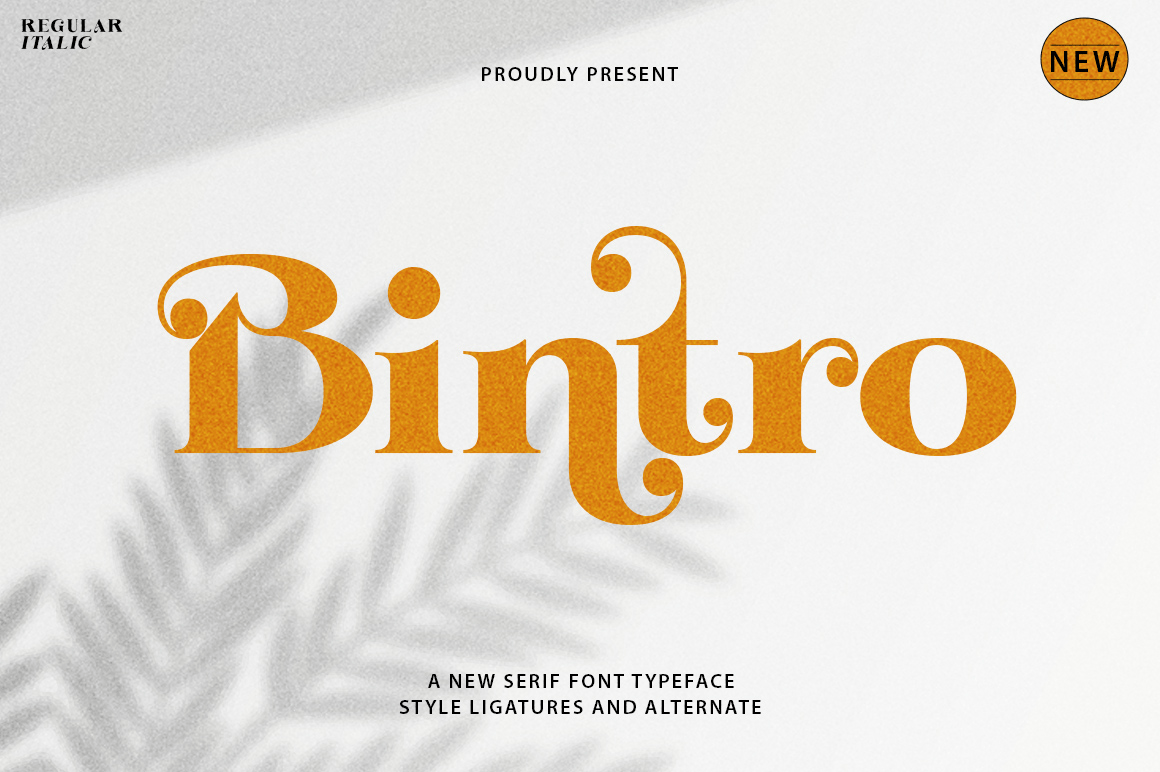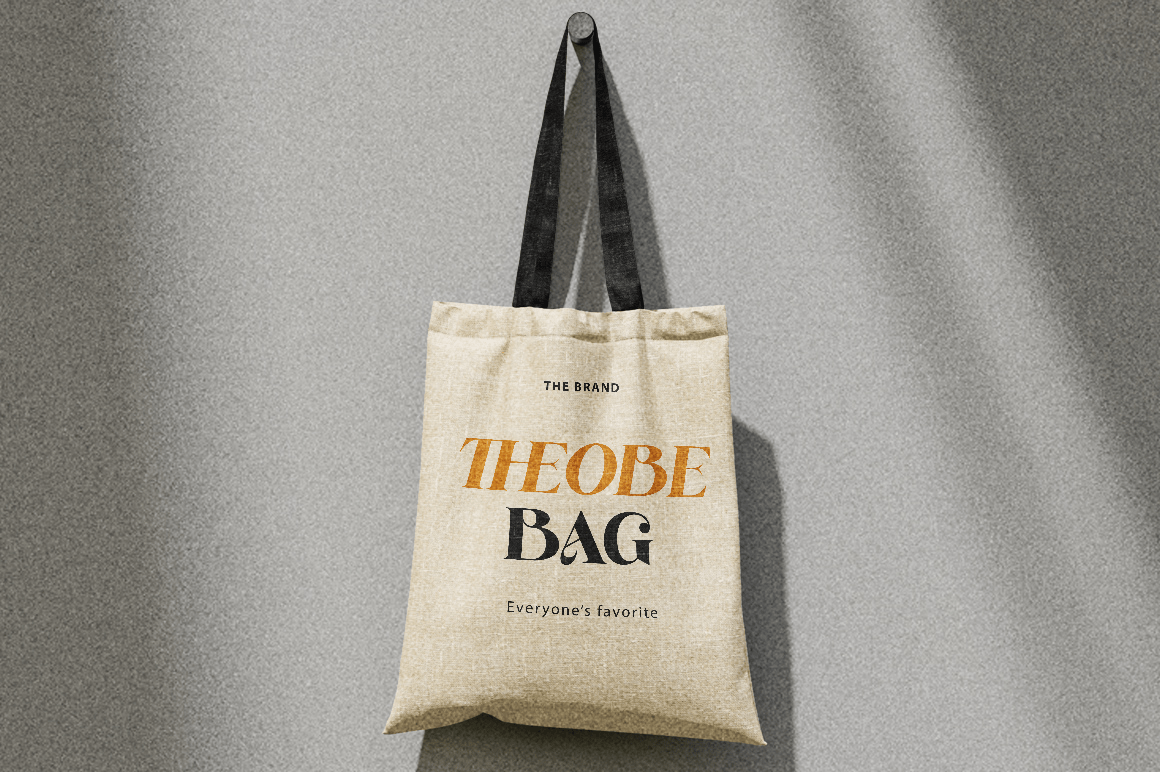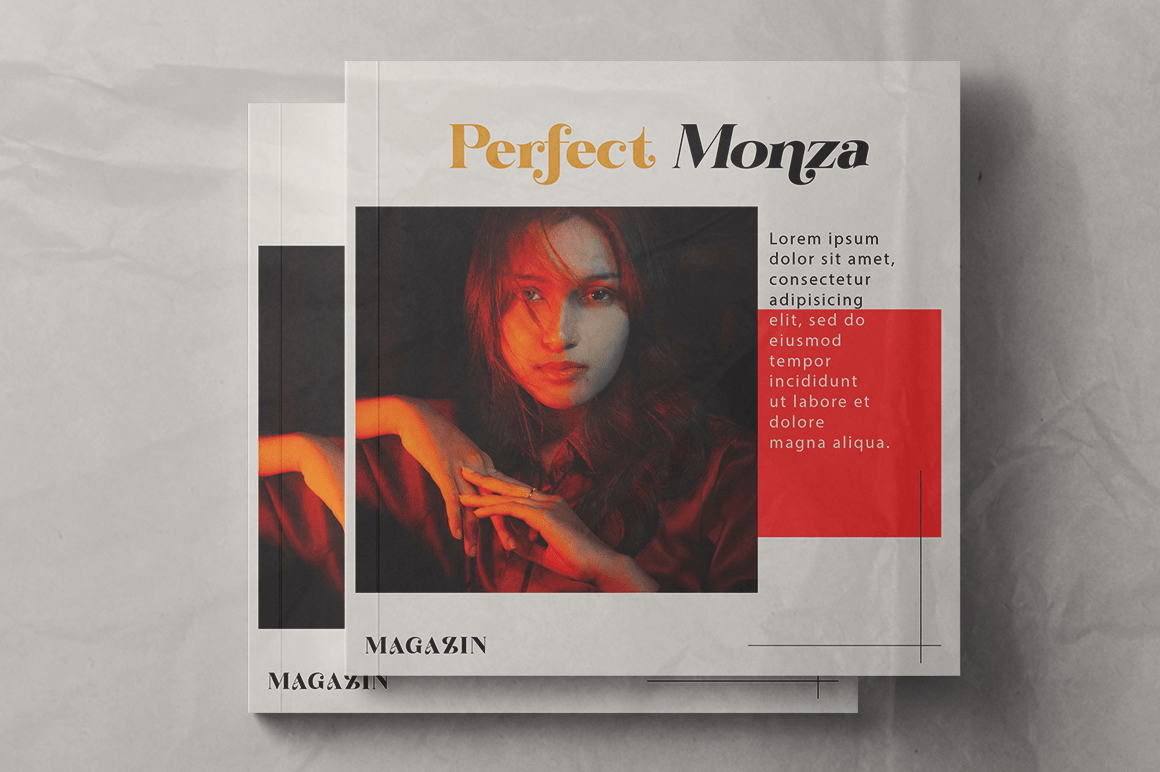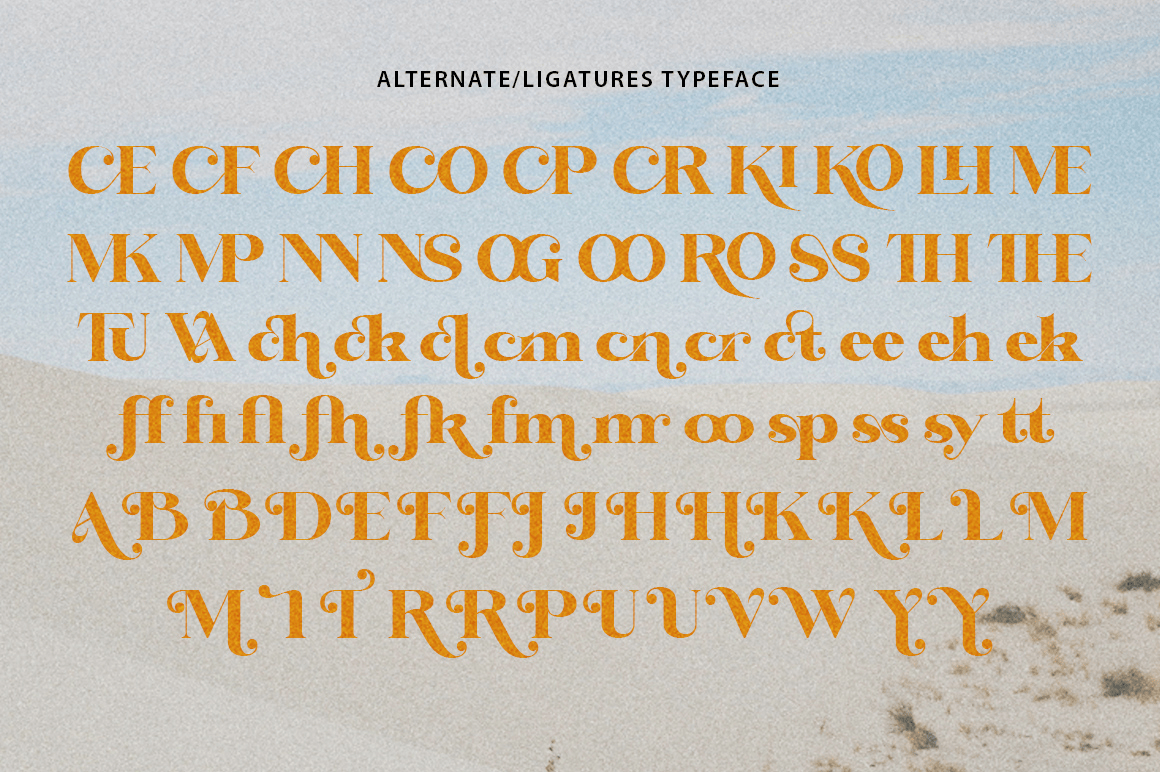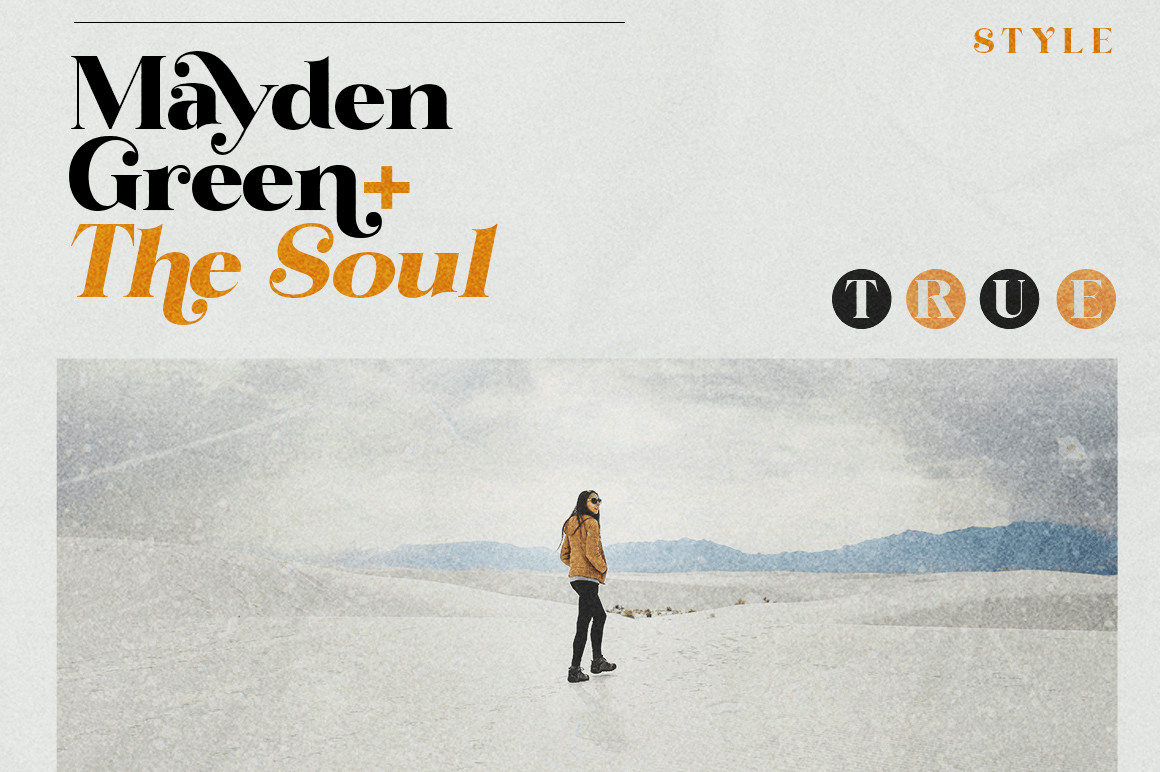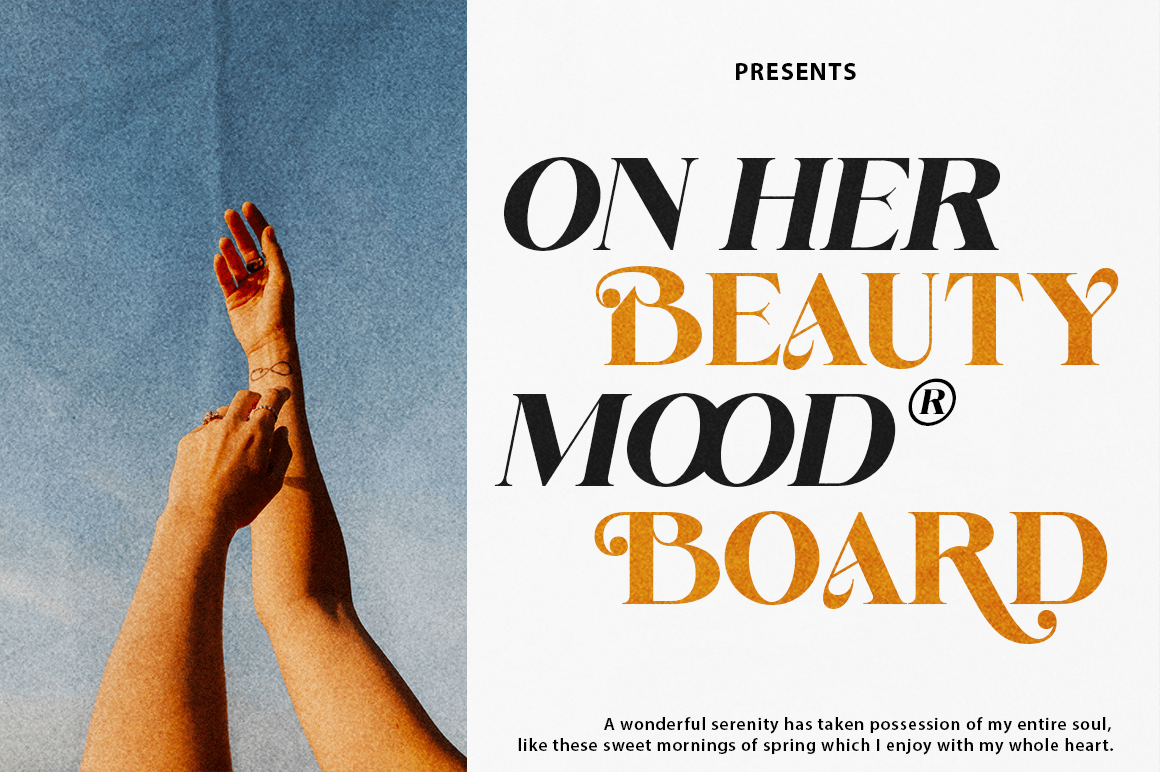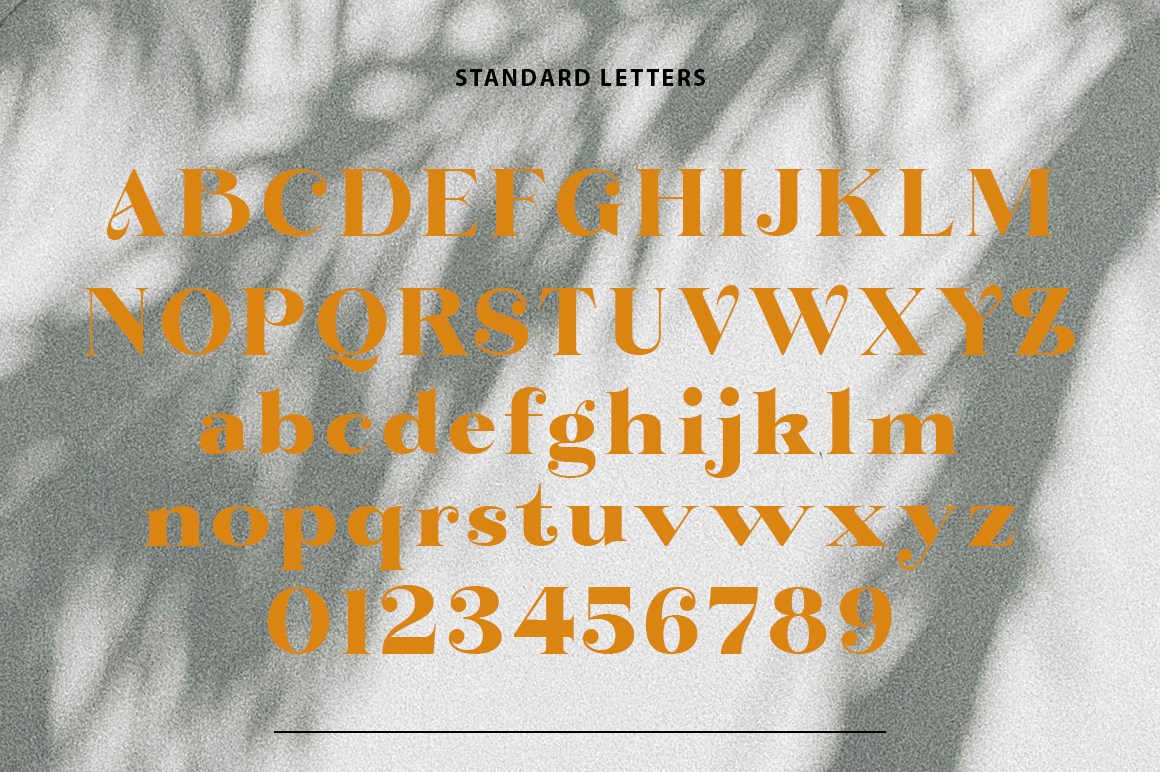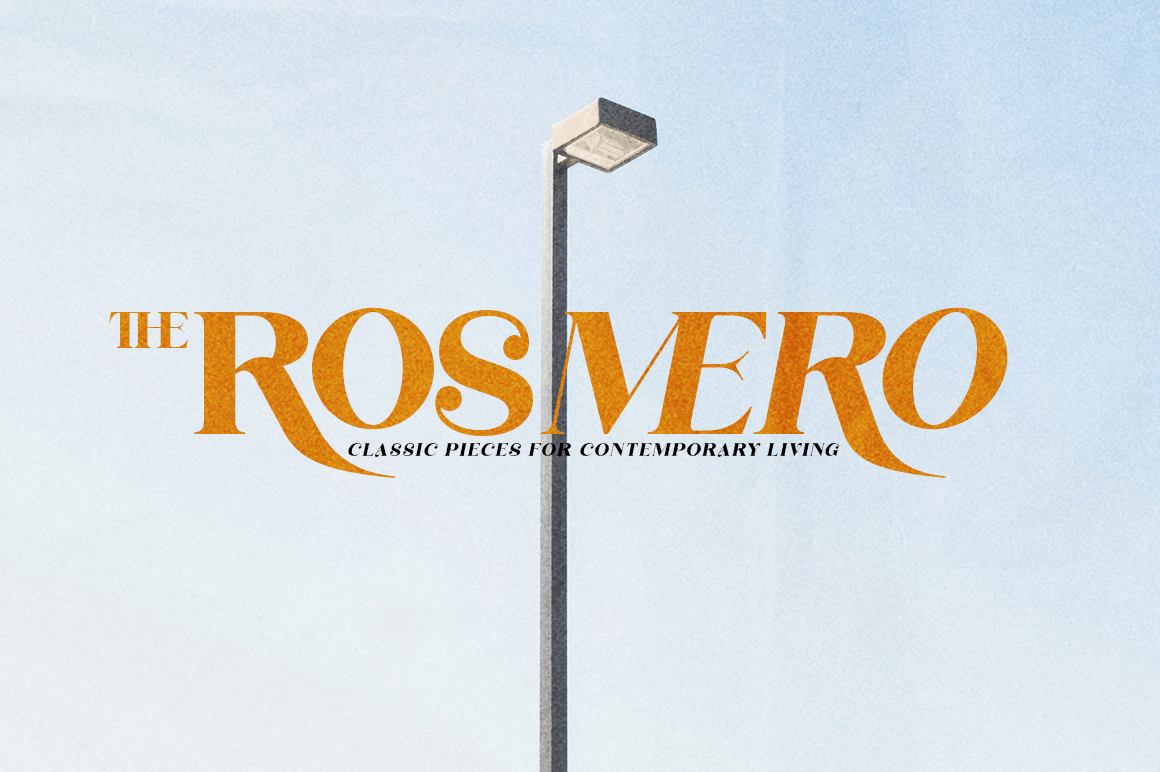
Bintro
Font Family by Propertype
Bintro font is a serif typeface that has a distinctive elegant, classic, and stylish character. This font is suitable for editorial design, branding, and creative projects that aim to convey a luxurious and professional impression. Bintro is often used for titles, logos, or visual elements that require strong visual appeal.